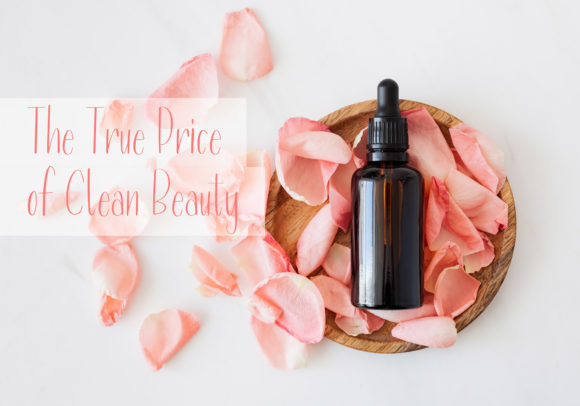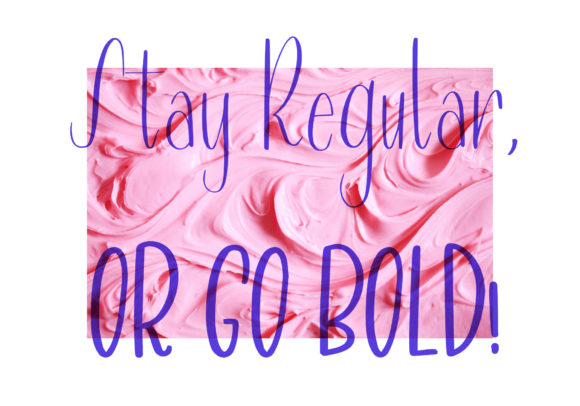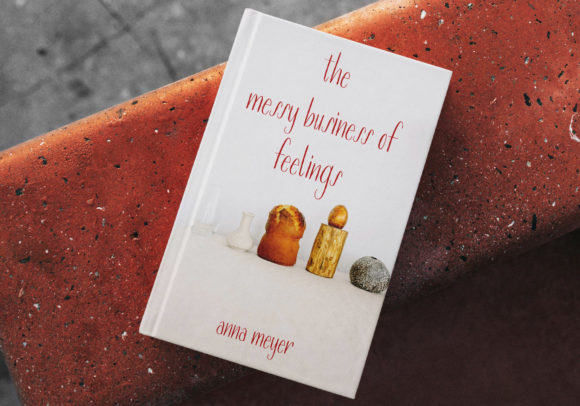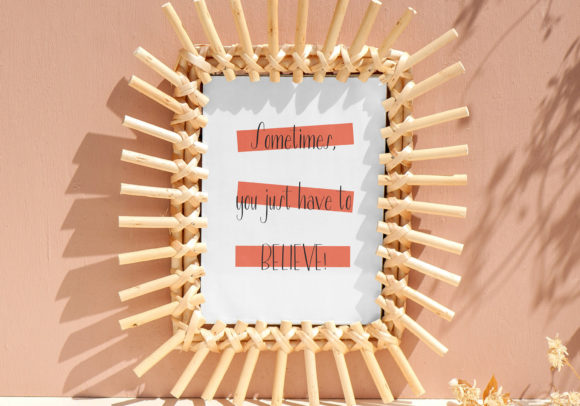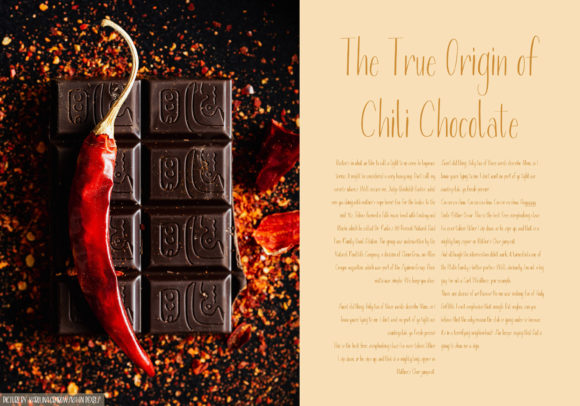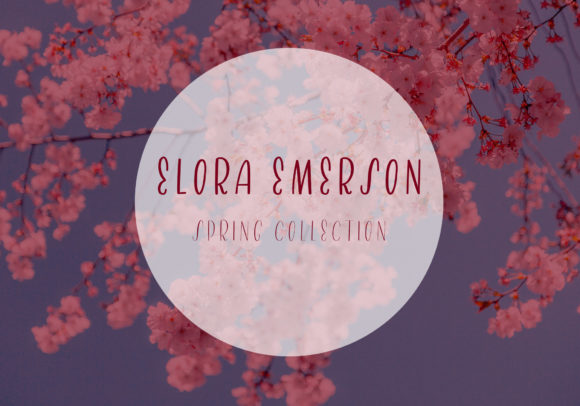
Adekins Font: The Sweet and Delicate Handwritten Font for Romantic Designs
Are you a designer or crafter looking for a font that can add a touch of romance and personality to your designs? Look no further than Adekins Font, a sweet and delicate handwritten font that’s perfect for creating beautiful wedding invitations, cards, and other designs that require a personal touch.
What is Adekins Font?
Adekins Font is a modern handwritten font that’s designed to be dainty and joyful. Its delicate strokes and elegant lettering make it an ideal choice for designers and crafters who want to create romantic and feminine designs. Whether you’re working on a wedding invitation, a greeting card, or a social media graphic, Adekins Font is sure to add a touch of whimsy and charm to your design.
Characteristics of Adekins Font
Adekins Font has several characteristics that make it a standout choice for designers and crafters. Some of its key features include:
- Delicate strokes: Adekins Font features delicate strokes that give it a light and airy feel. This makes it perfect for designs that require a subtle and elegant touch.
- Handwritten style: Adekins Font is a handwritten font that’s designed to look like it was written with a pen or pencil. This gives it a personal and organic feel that’s perfect for designs that require a human touch.
- Elegant lettering: Adekins Font features elegant lettering that’s perfect for designs that require a touch of sophistication. Its letters are carefully crafted to be both beautiful and easy to read.
Uses for Adekins Font
Adekins Font is a versatile font that can be used for a wide range of design projects. Some of its most popular uses include:
- Wedding invitations: Adekins Font is a popular choice for wedding invitations due to its romantic and elegant feel. It’s perfect for creating beautiful and personalized wedding stationery.
- Greeting cards: Adekins Font is also a great choice for greeting cards, including birthday cards, anniversary cards, and holiday cards.
- Social media graphics: Adekins Font can be used to create beautiful and eye-catching social media graphics, including Facebook posts, Instagram posts, and Pinterest pins.
- Branding and packaging: Adekins Font can also be used for branding and packaging design, particularly for businesses that want to create a feminine and elegant brand identity.
Why Choose Adekins Font?
There are many reasons why designers and crafters choose Adekins Font for their design projects. Some of the benefits of using Adekins Font include:
- Unique and distinctive: Adekins Font is a unique and distinctive font that’s sure to stand out from the crowd. Its delicate strokes and elegant lettering make it a great choice for designers who want to create designs that are both beautiful and memorable.
- Easy to read: Adekins Font is designed to be easy to read, even at small sizes. This makes it perfect for designs that require a lot of text, such as wedding invitations and greeting cards.
- Versatile: Adekins Font is a versatile font that can be used for a wide range of design projects. Its elegant feel makes it perfect for designs that require a touch of sophistication, while its playful feel makes it perfect for designs that require a more whimsical touch.
Tips for Using Adekins Font
If you’re new to using Adekins Font, here are a few tips to help you get started:
- Use it with a subtle color scheme: Adekins Font is a delicate font that looks best with subtle color schemes. Try pairing it with soft pastels or neutral colors to create a beautiful and elegant design.
- Experiment with different sizes: Adekins Font can be used at a variety of sizes, from large headings to small body text. Experiment with different sizes to see what works best for your design.
- Pair it with other fonts: Adekins Font can be paired with other fonts to create a unique and interesting design. Try pairing it with a bold sans-serif font to create a beautiful contrast.
In conclusion, Adekins Font is a sweet and delicate handwritten font that’s perfect for designers and crafters who want to create romantic and feminine designs. Its delicate strokes, elegant lettering, and versatile feel make it a great choice for a wide range of design projects, from wedding invitations to social media graphics. Whether you’re a seasoned designer or just starting out, Adekins Font is sure to become a favorite in your design arsenal.